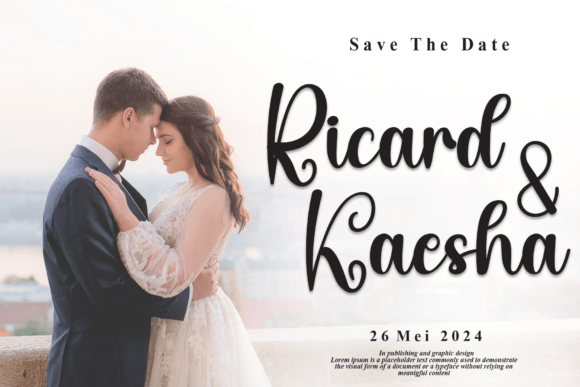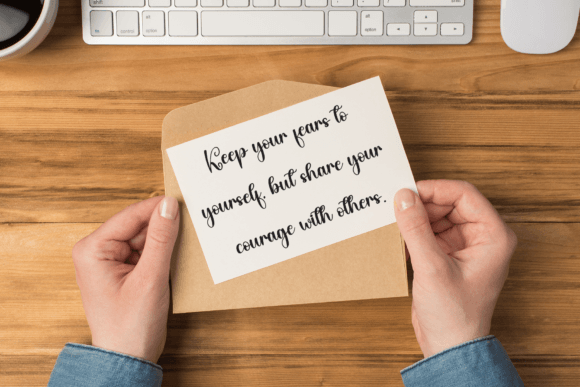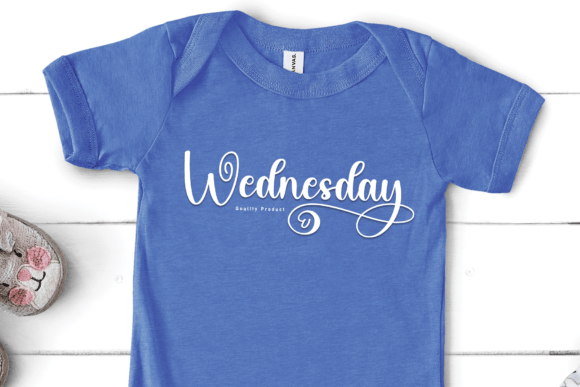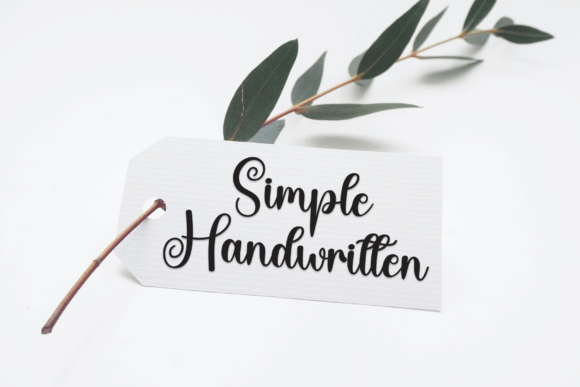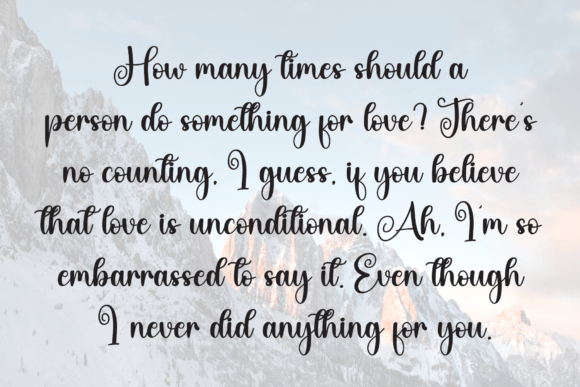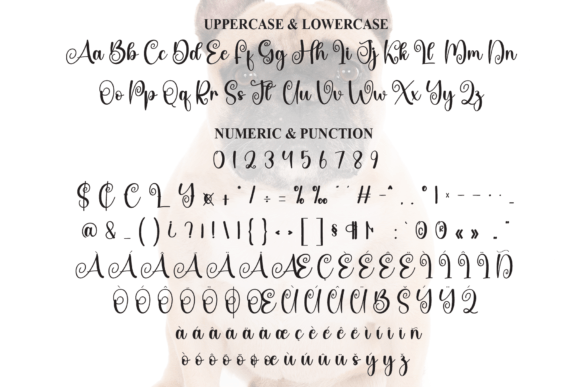
The Designer’s Delight: Uncovering the Charm of Bulldogs Font
I still remember the design project that led me to discover Bulldogs Font. I was working on an upscale wedding invitation, and my client was adamant about finding the perfect font – something elegant, yet playful; sophisticated, yet approachable. After hours of scouring through font libraries, I stumbled upon Bulldogs Font, and it was love at first sight! ✨ The flowing strokes, the refined allure, and the warmth it exuded were exactly what I needed to elevate my design.
What I Love About Bulldogs Font
- ✨ Elegant and refined, perfect for upscale designs
- 🎨 Versatile and adaptable to various design styles
- 💫 Beautifully crafted with attention to detail
While Bulldogs Font is an excellent choice, there are a few things to keep in mind: 🤔
- ⚠️ Limited availability of condensed or extended versions
- Experiment with OpenType features, such as ligatures and stylistic alternates, to add visual interest to your design.
The Story Behind Bulldogs Font
Bulldogs Font was designed with the intention of creating a modern, elegant, and charming handwritten font. The designer aimed to craft a font that exudes warmth and sophistication, making it perfect for upscale designs and creative projects. While the true story behind the font’s creation may be unknown, its beauty and versatility have captured the hearts of designers worldwide.
Q: What type of projects is Bulldogs Font best suited for?
A: Bulldogs Font is ideal for upscale invitations, personal branding, editorial designs, and high-end creative projects.
Q: Does Bulldogs Font support OpenType features?
A: Yes, Bulldogs Font supports OpenType features, including ligatures, stylistic alternates, and glyphs.